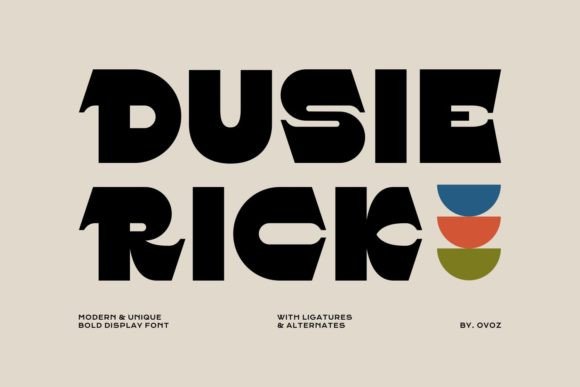
Welcome to the realm of Dusie Rick, a font collection that sparks imagination and captivates hearts. Crafted by the ingenious minds at Imoodev, this assemblage of fonts is a visual symphony that liberates your creativity. Dusie Rick is an exquisite display font, gracefully adorning any design project with its unique and magnetic allure.
As a typographic masterpiece, Dusie Rick's elegant strokes dance across the page with an air of sophistication and charm. Its meticulously designed characters exude a timeless allure, making it the ideal choice for a wide array of projects. No matter your creative vision, Dusie Rick's versatile nature effortlessly adapts to meet your every need.
Unleash your inner artist and let Dusie Rick's allure guide your designs to new heights. Whether you're crafting a breathtaking logo, an eye-catching poster, or a heartfelt invitation, this font collection serves as a versatile tool to bring your imagination to life.
Immerse yourself in the world of Dusie Rick and elevate your creative journey to new dimensions. Seize this opportunity to add a touch of enchantment to your projects and make a lasting impression on your audience. Dive into the depths of design excellence with Dusie Rick, and let your creativity soar like never before.
With its versatility and timeless appeal, Dusie Rick stands as a testament to the transformative power of typography. Discover the endless possibilities that await you as you embark on a creative odyssey with this captivating font collection. Allow your designs to blossom into works of art, leaving an indelible mark on the world.